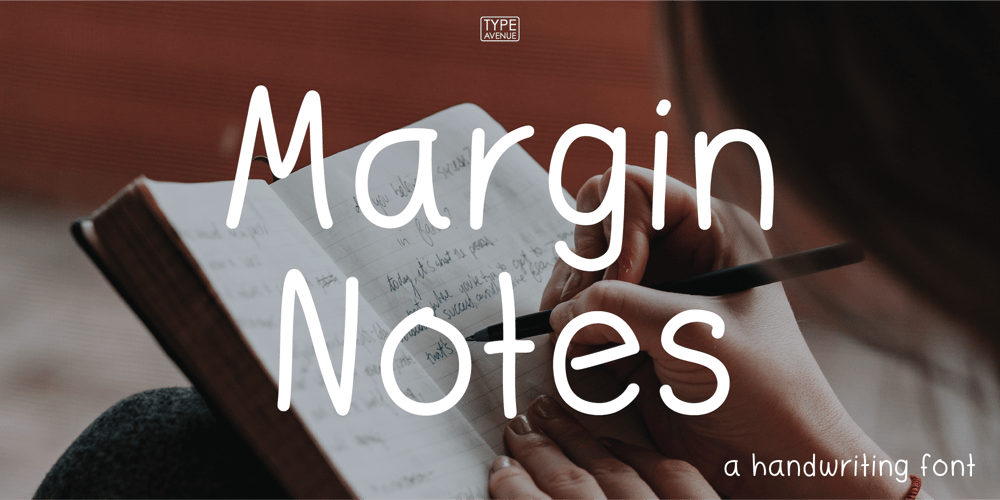
Margin Notes Font Family was designed by Jess J and published by Type Avenue. Margin Notes contains 1 styles and family package options. Margin Notes font offers a natural handwriting look. It had imperfect, organic curves and off set lines that imitate natural hand written writing. Give this handwriting font a try with note-taking, organization or even a back to school poster.